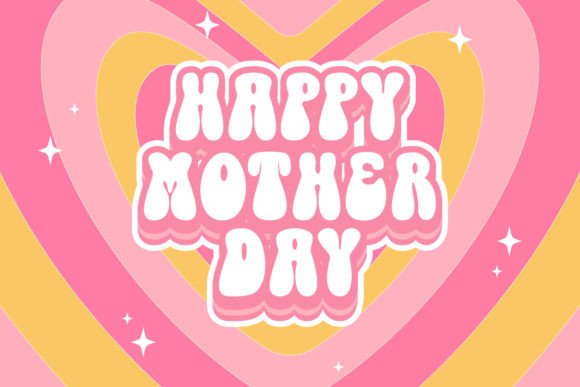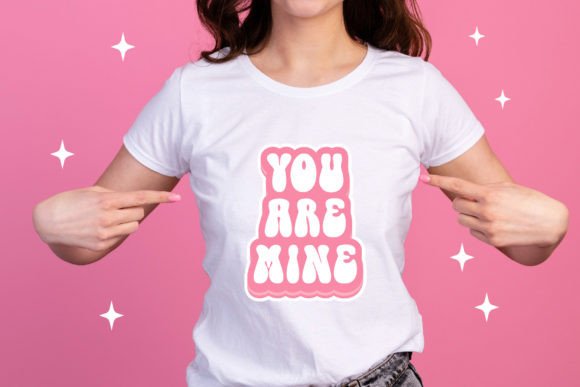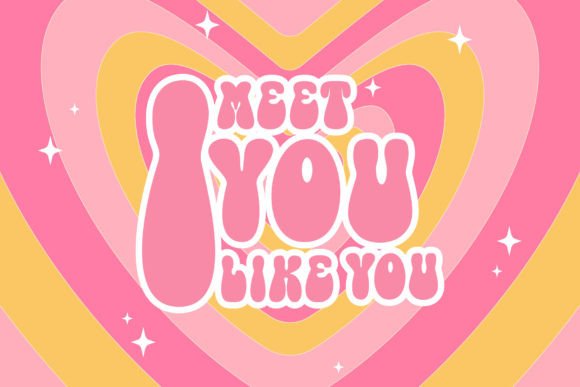
Introduction to Lovely Groovy Font
Remember the moment you stumbled upon the perfect design element for your project? It’s like a breath of fresh air, isn’t it? The way it elevates your work and brings it to life. For designers, finding that special something can be a game-changer. It’s what sets your creative project apart from the rest.
One such design resource that’s sure to bring a touch of magic to your work is the Lovely Groovy Font. This stunning, retro-inspired display font is perfect for adding a dash of whimsy and romance to your designs. Whether you’re working on a greeting card, a headline, or any other creative project, the Lovely Groovy Font is sure to deliver.
Key Features of Lovely Groovy Font
- The Lovely Groovy Font is a high-quality design resource ideal for creative projects requiring a unique touch.
- This font features a transparent background, making it easy to layer over images and other design elements.
- What sets Lovely Groovy Font apart is its ability to add a touch of elegance and sophistication to any design project.
- This font is perfect for designers seeking a high-quality, unique design resource to elevate their creative projects.
Honest Review: Lovely Groovy Font
I recently came across the Lovely Groovy Font, and I must say it’s a great addition to any designer’s arsenal. As a design resource, it offers a lot of creative possibilities.
What works well is the font’s playful and vibrant aesthetic. The ✨ bold and colorful strokes add a fun touch to any creative project. I particularly like how the font handles text, making it easy to read even with the transparent background option.
Here are some of the font’s key features:
- High-quality design that’s perfect for digital and print projects
- Translucent and transparent background options for added flexibility
- Works well for logos, branding, and marketing materials
However, there are some limitations to consider. The ⚠️ font might not be the best choice for formal or corporate designs, as it can come across as too playful. Additionally, some users may find the font’s color palette a bit overwhelming.
Overall, I’d say the Lovely Groovy Font is a great choice for designers looking to add some personality to their projects. With its high quality and creative possibilities, it’s definitely worth checking out.
The Lovely Groovy Font is a unique and stylish design resource perfect for creative projects. With its high-quality and transparent background, it adds a touch of elegance to any design.
To get the most out of the Lovely Groovy Font, use it in combination with other design elements such as images and graphics. Experiment with different font sizes, colors, and styles to create a unique look.
The Lovely Groovy Font is perfect for various creative projects such as branding, packaging, and advertising. It’s also great for creating custom graphics, illustrations, and digital products.